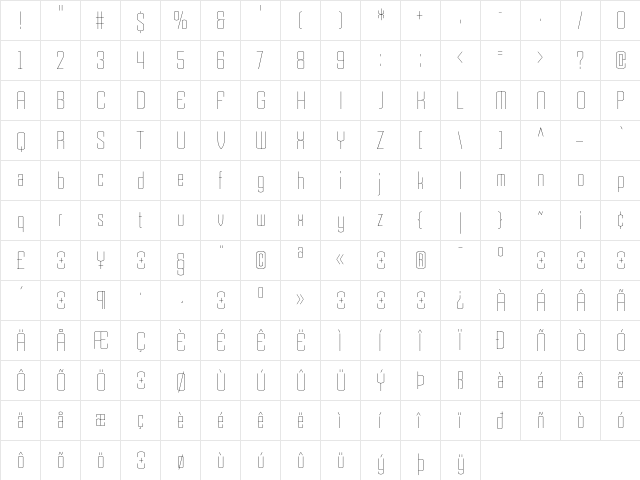
Armada ThinCondensed
Design Context for Armada Typeface
Armada is a composed and adaptable typeface that performs quietly and consistently across a wide range of design contexts. Its slender proportions lend an understated elegance to any composition. Its narrow stance lets it pack a punch even in space-constrained designs.